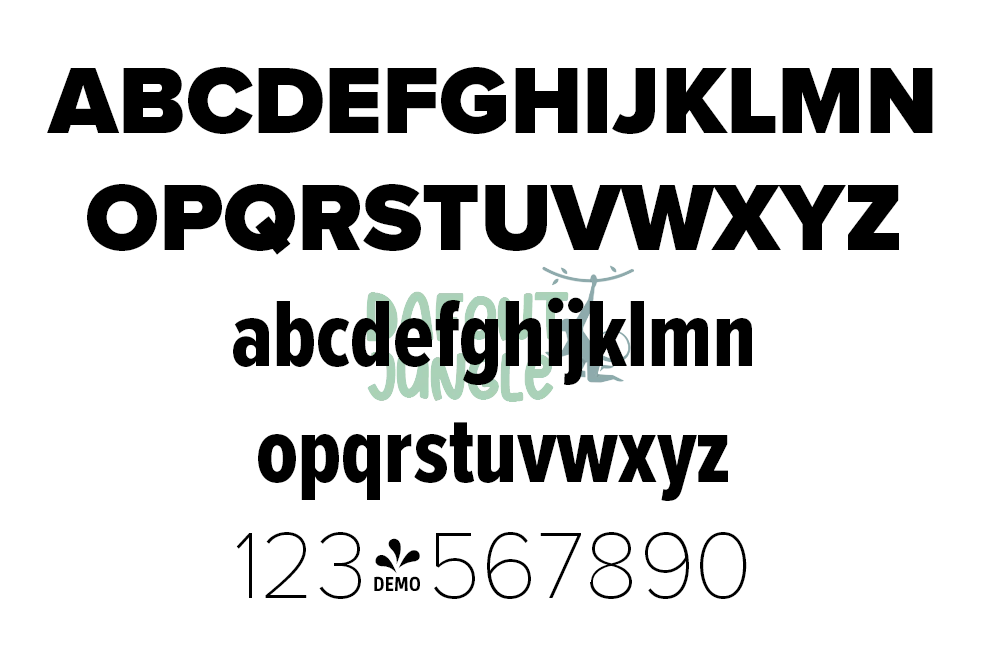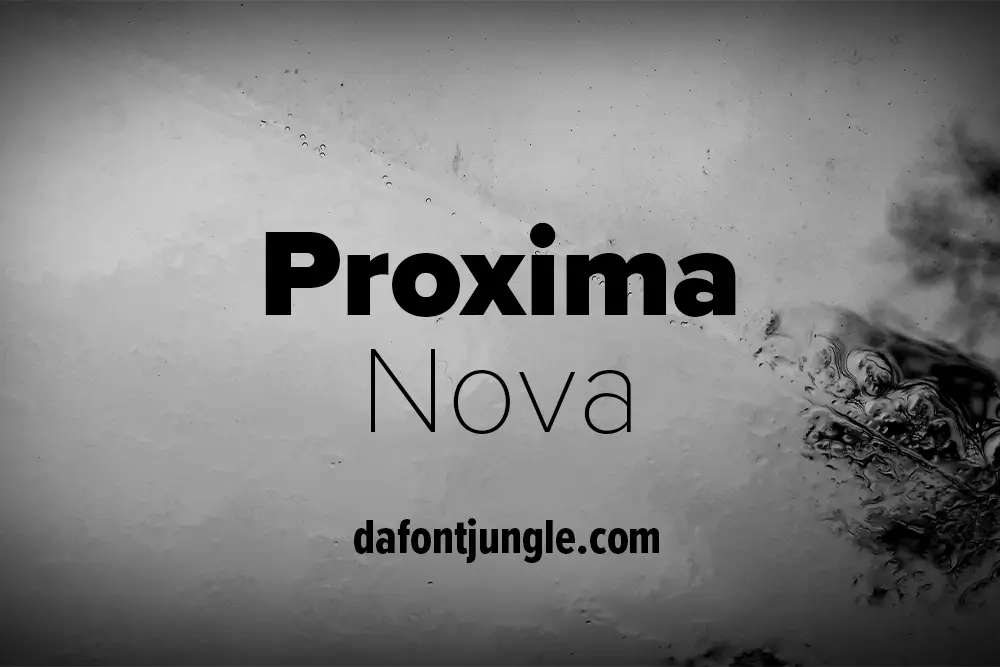
Proxima Nova – Geometric Sans Serif Powerhouse
Proxima Nova is a flexible geometric sans serif font that blends the clean style of Futura with the readability of Akzidenz Grotesk. Mark Simonson first released it in 1994 as Proxima Sans. He later expanded and relaunched it in 2005 under the name Proxima Nova.
The family includes seven weights across three widths—each with italics—totaling 80 fonts. It supports over 1,400 characters, including Greek, Cyrillic, Vietnamese, and many currency symbols. Its modern and balanced look has made it one of the most widely used commercial fonts on the web.